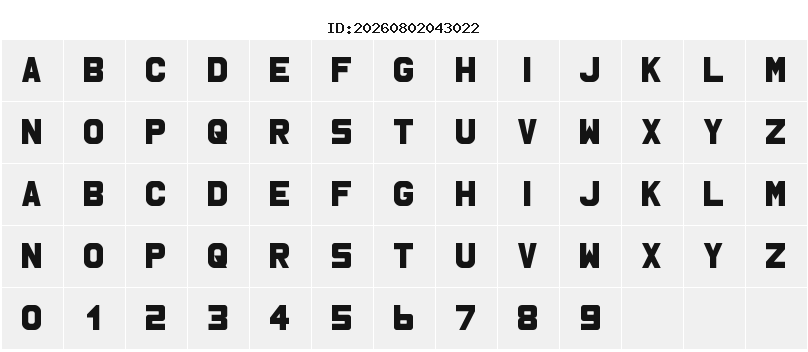
MSU1 Preview
About MSU1.ttf
MSU1.ttf is a modern, elegant sans-serif font designed for ultimate readability and visual harmony. Perfect for branding, headlines, web design, and print materials.